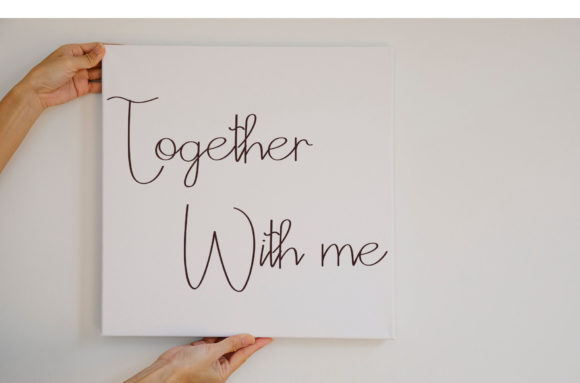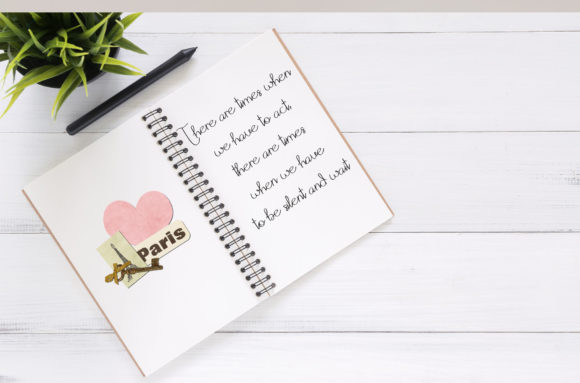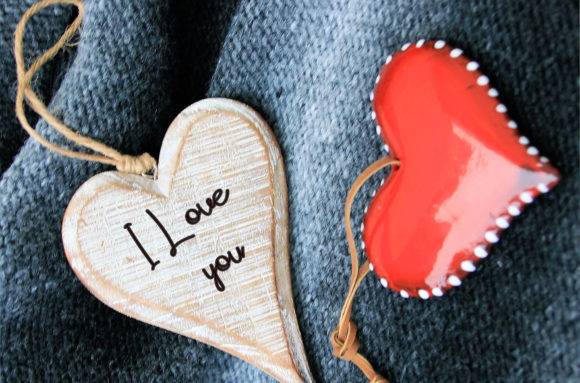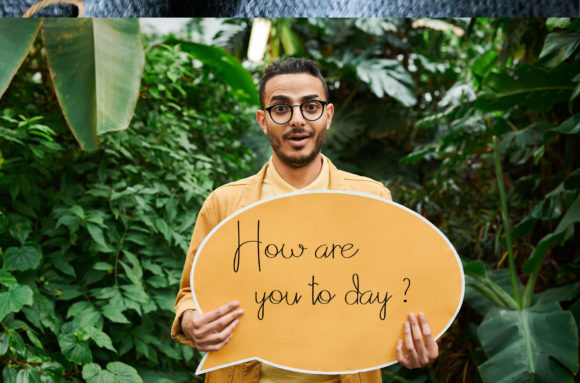
Why Not Font
About Why Not Font
Why Not is a thin lettered and beautiful script font that works well for a variety of personalized designs. Get inspired by its playful, romantic charm and add it to your creations.